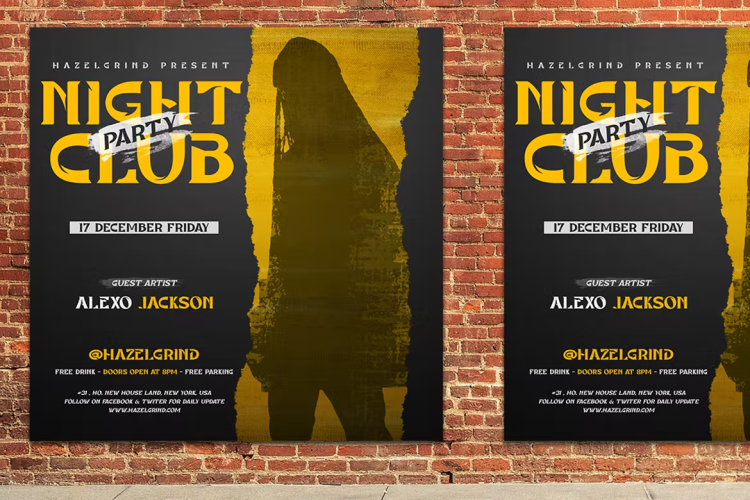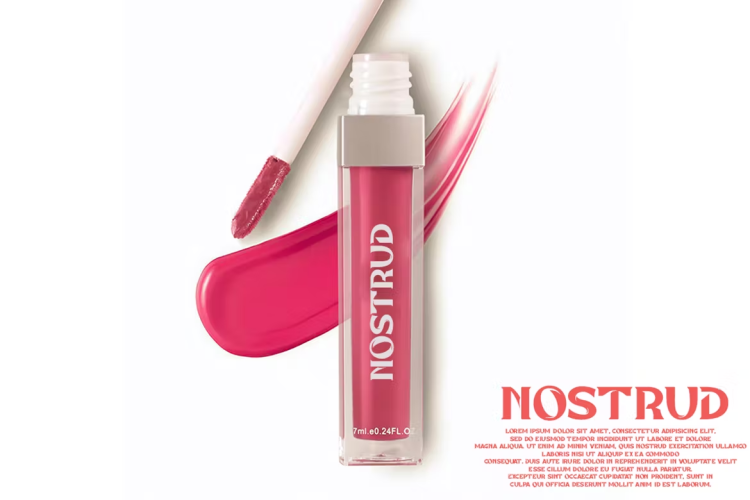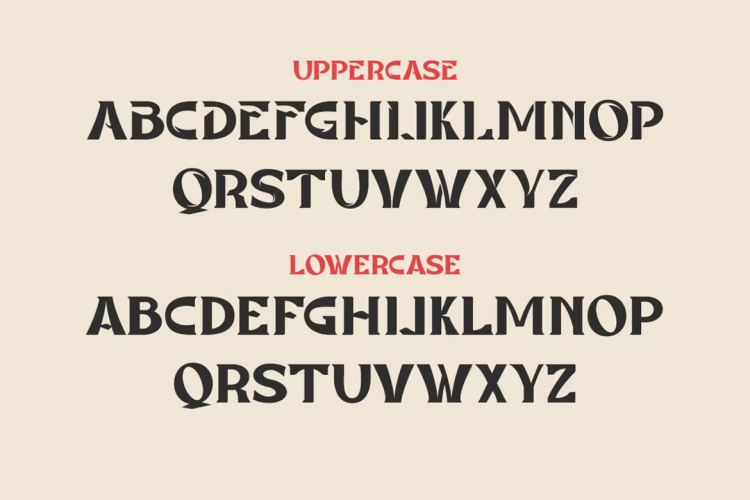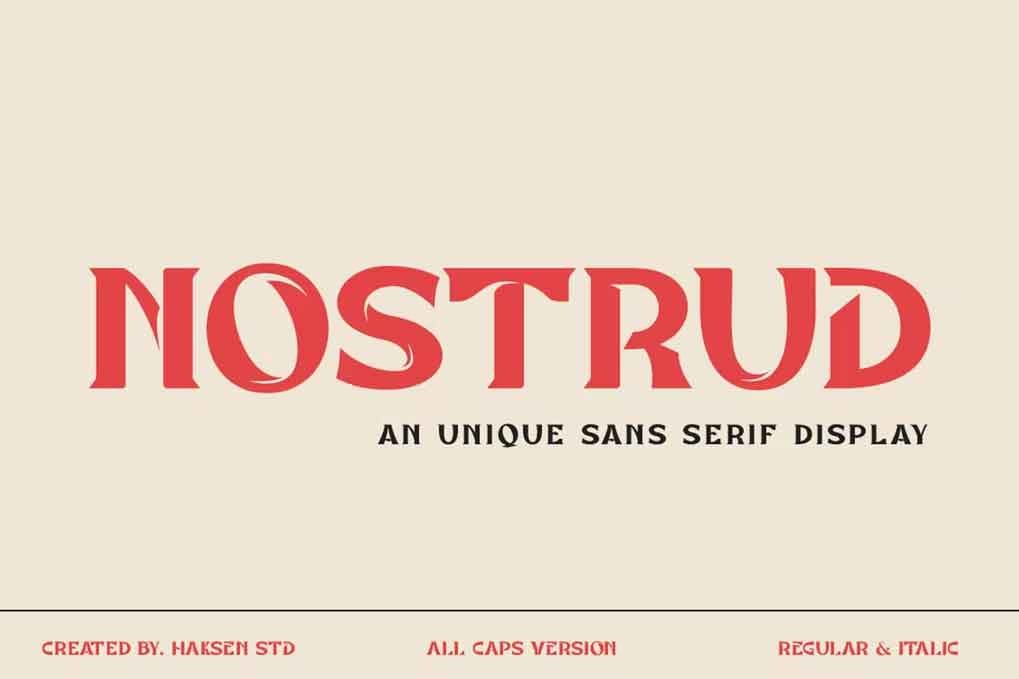
NOSTRUD Font
NOSTRUD is a strong modern sans serif style with All Caps feel nice balanced. Its wide range of uppercase allow versatile design options and works perfectly for headline…
NOSTRUD is a strong modern sans serif style with All Caps feel nice balanced. Its wide range of uppercase allow versatile design options and works perfectly for headlines, logos, posters, packaging and much more.
Where NOSTRUD Font works best
NOSTRUD Font stays legible at small sizes, which makes it a strong choice for navigation, buttons and dashboards in web design and app interfaces.
Clean sans serifs like NOSTRUD Font are the default language of SaaS, fintech and product branding.
What is NOSTRUD Font good for?
NOSTRUD Font is a Sans Serif Fonts typeface tagged Branding, Headlines, Modern, Packaging. It works well for headlines, logos, posters, social media graphics and branding projects that need a distinctive sans serif fonts look.